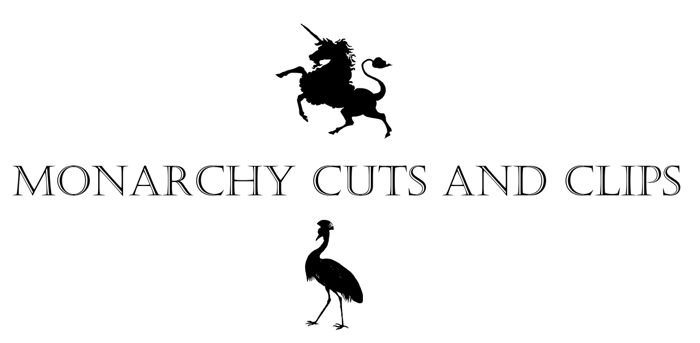
Monocracy Cuts and Clips Font
Monocracy Types makes research and development of fonts with historical and artistical relevant forms. This font is a FREE software for personal and non-commercial use only.